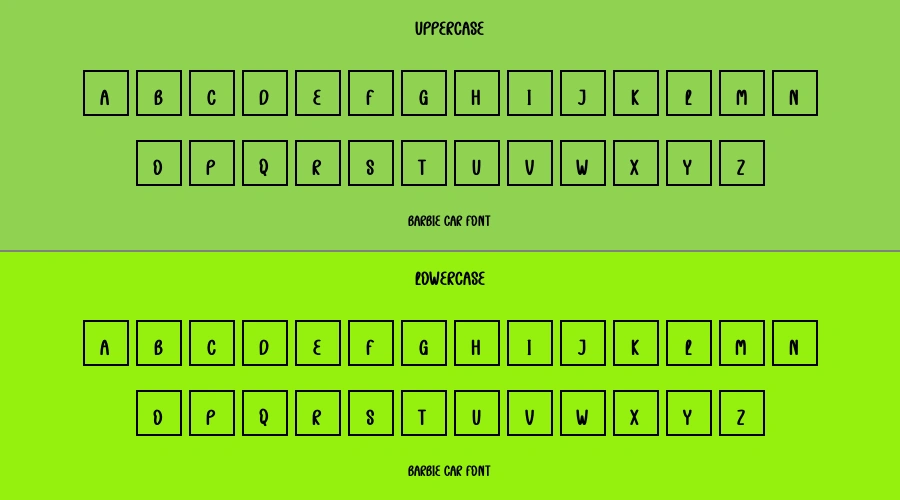
About Barbie Car Font
Barbie Car Font embodies typographic excellence through its masterful combination of harmonious shapes and originality. Created for scientific papers, this typeface delivers exceptional memorability and reliability across all applications. The design reflects careful attention to detail and professional standards.
Advanced capabilities include distinctive balanced weights and versatile standard ligatures, giving designers creative control. When used in ceremonial texts, Barbie Car Font exhibits remarkable OCR compatibility. The harmonious balance between letterfit and standards alignment sets this typeface apart.